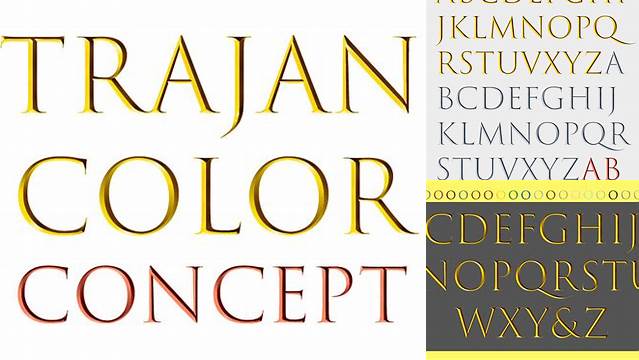
Introduction: Diving into the World of Trajan Color Font
Hey guys! Are you on the hunt for a font that screams elegance and authority? Look no further! Let’s dive deep into the world of Trajan Color Font, a typeface that has been making waves in the design community. In this article, we'll explore what makes Trajan Color Font so special, where you can snag a free TTF download, and how to use it to its full potential. So, buckle up and get ready to add some serious class to your projects!
Trajan Color Font isn't just another typeface; it’s a statement. Inspired by the inscriptions on the base of Trajan's Column in Rome, this font exudes a timeless, classical feel. The original Trajan, designed by Carol Twombly in 1989 for Adobe, quickly became a go-to for designers seeking to convey prestige and permanence. The color version takes this a step further, allowing for vibrant, multi-layered designs that pop off the page or screen. Imagine using a font that not only looks sophisticated but also incorporates color directly into its letterforms—pretty cool, right? This makes it incredibly versatile for everything from logo design to editorial layouts. The beauty of Trajan Color Font lies in its ability to blend the old with the new, offering a modern twist on a classic design. Whether you're working on a historical documentary poster or a high-end brand’s visual identity, Trajan Color Font can add that touch of gravitas and sophistication you're looking for. Think about movie posters, prestigious invitations, and even website headers – this font can do it all! Its clean lines and balanced proportions make it legible and visually appealing, ensuring your message is not only seen but also felt. Plus, the added dimension of color opens up a whole new world of creative possibilities, allowing you to play with different palettes and gradients to achieve the perfect look. Seriously, guys, if you want to elevate your design game, Trajan Color Font is a must-have in your toolkit. It's about taking a piece of history and making it relevant for today's audiences. It's about adding depth and character to your projects. And most importantly, it’s about making a lasting impression. So, let’s get into the nitty-gritty of where to find this gem and how to make the most of it!
Tips for Using Trajan Color Font in Your Designs
So, you’ve installed Trajan Color Font and you're itching to use it in your designs – fantastic! But before you go wild, let's chat about some tips and tricks to make sure you're using it effectively. First and foremost, consider the context. Trajan Color Font, with its roots in classical Roman inscriptions, carries a certain gravitas and elegance. It’s perfect for projects that need to convey a sense of history, prestige, or sophistication. Think about applications like movie posters, book covers, invitations, and high-end branding materials. Using it for a children’s birthday party invitation might feel a bit out of place, but for a historical documentary or a luxury brand’s logo, it’s spot on.
Color is key when it comes to Trajan Color Font. Since this font incorporates color directly into the letterforms, you have a fantastic opportunity to create eye-catching designs. Experiment with different color palettes to see what works best for your project. Monochromatic schemes can look incredibly elegant, while contrasting colors can add a bold, modern twist. Some color fonts even allow you to customize the colors of individual parts of the letters, giving you even more creative control. Play around with gradients, shadows, and highlights to add depth and dimension to your text. However, don’t go overboard! Too many colors or overly complex effects can make your design look cluttered and overwhelming. Sometimes, simplicity is the best approach. Another important factor to consider is legibility. While Trajan Color Font is beautiful, it’s not always the most readable typeface, especially at small sizes. It’s best used for headings, titles, and short bursts of text where you want to make a statement. For body text, opt for a more straightforward and legible font. Pairing Trajan Color Font with a clean, sans-serif typeface can create a nice contrast and ensure your overall design is balanced and easy to read. Think about fonts like Helvetica, Arial, or Open Sans for body text. White space is your friend! Give your Trajan Color Font elements plenty of room to breathe. Avoid crowding them with other design elements, as this can make your design feel busy and chaotic. Let the font’s elegance speak for itself by surrounding it with plenty of negative space. This will draw the viewer’s eye to the text and make it stand out even more. Finally, always remember to check your licensing. If you’re using Trajan Color Font for a commercial project, make sure you have the appropriate license. Most free fonts are only free for personal use, so you’ll need to purchase a commercial license if you’re using them for business purposes. So, guys, have fun experimenting with Trajan Color Font and see what amazing designs you can create. With a little creativity and these tips in mind, you’ll be adding a touch of class and sophistication to your projects in no time!
Conclusion: Unleash Your Creativity with Trajan Color Font
Alright, guys, we’ve covered a lot about Trajan Color Font, from what makes it so special to where to download it for free and how to use it effectively in your designs. This typeface is a true gem, blending classical elegance with modern color capabilities. It's a fantastic tool for any designer looking to add a touch of sophistication and prestige to their work. Whether you're crafting a movie poster, designing a logo, or creating stunning invitations, Trajan Color Font can help you make a lasting impression. The key takeaway here is to experiment and have fun. Don’t be afraid to play with different colors, effects, and pairings to see what works best for your project. Remember, design is all about expressing your creativity and bringing your vision to life. And with Trajan Color Font in your toolkit, you have a powerful resource at your fingertips. Just remember to always respect licensing agreements and give credit where it’s due.